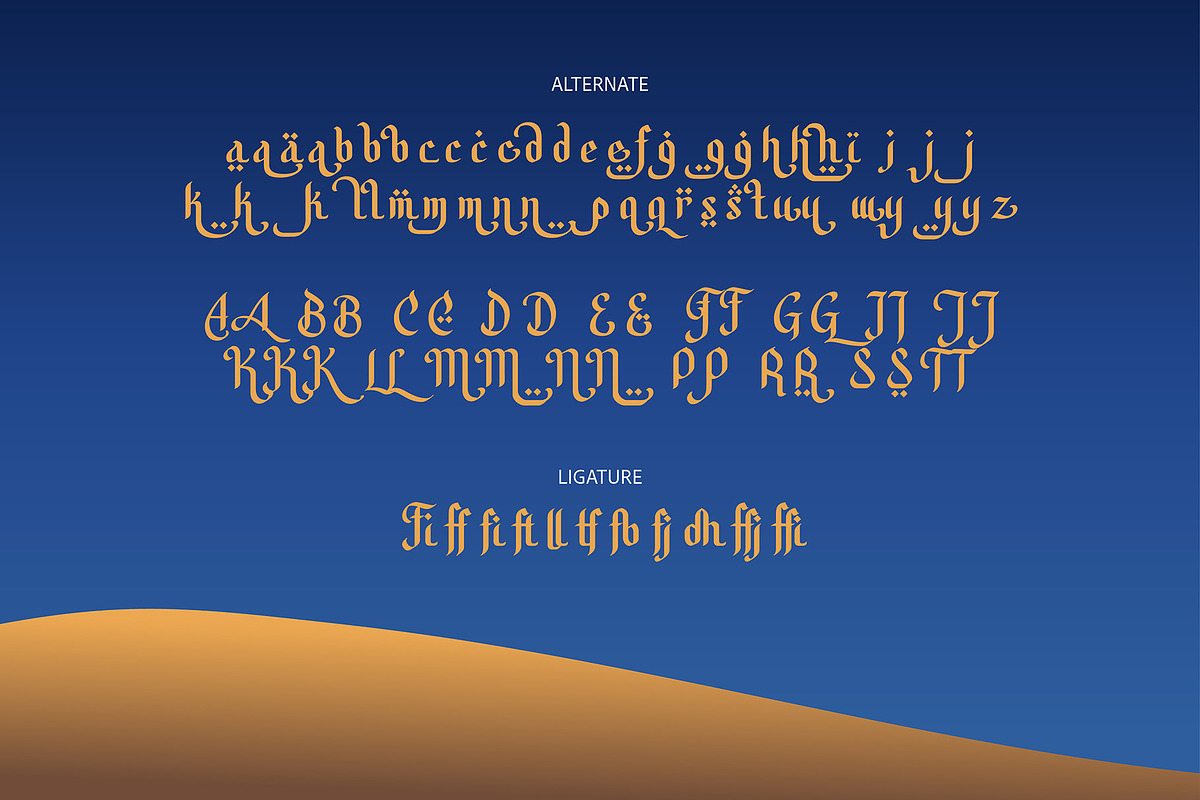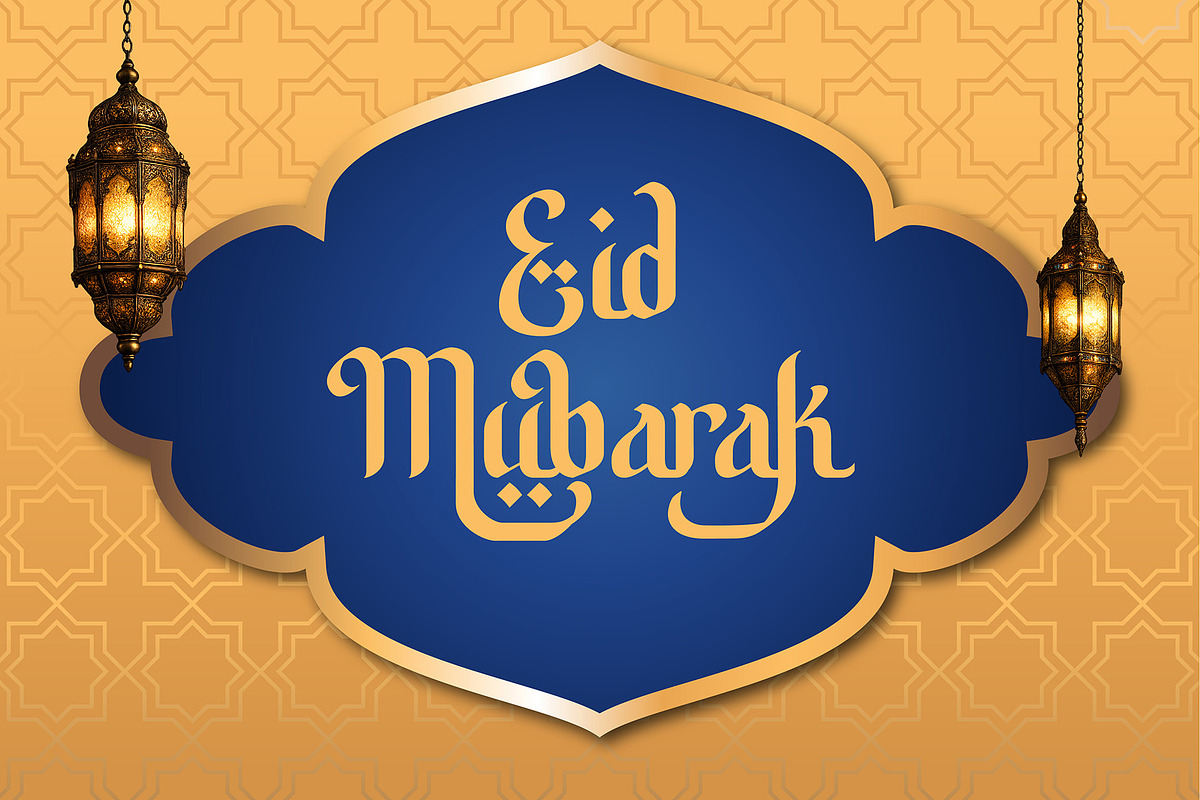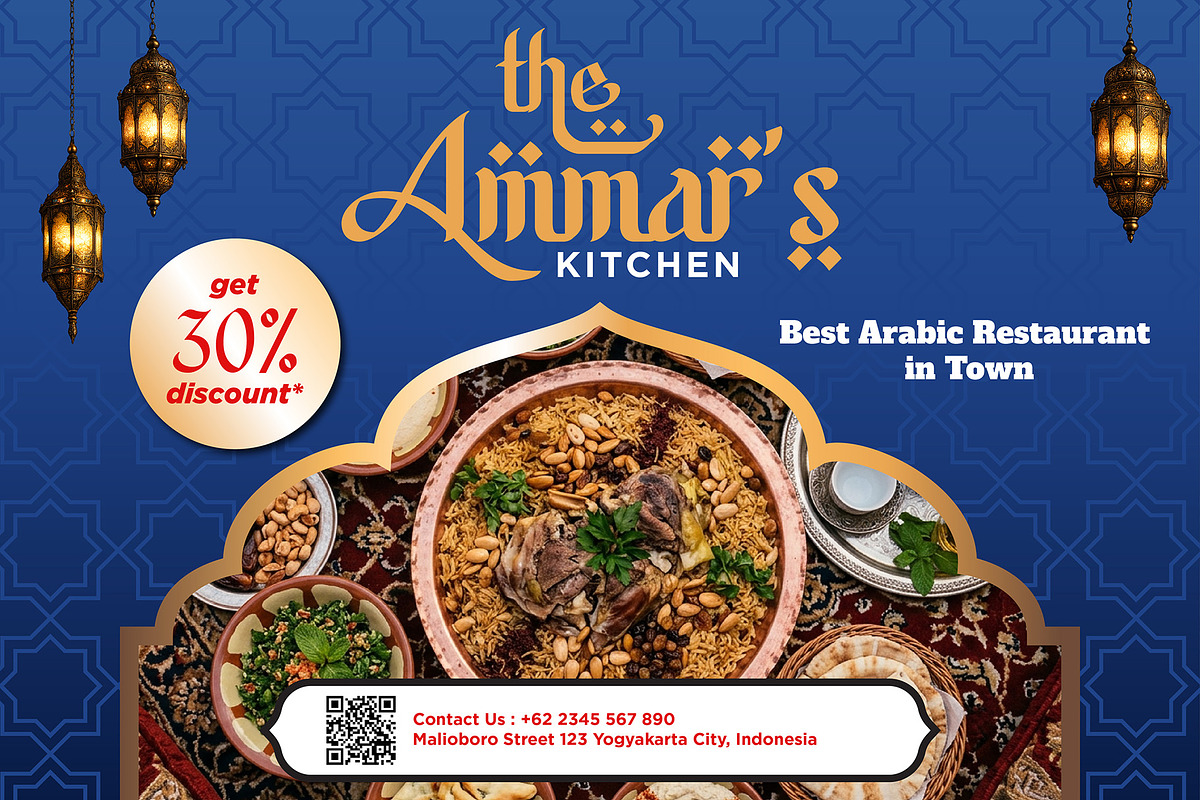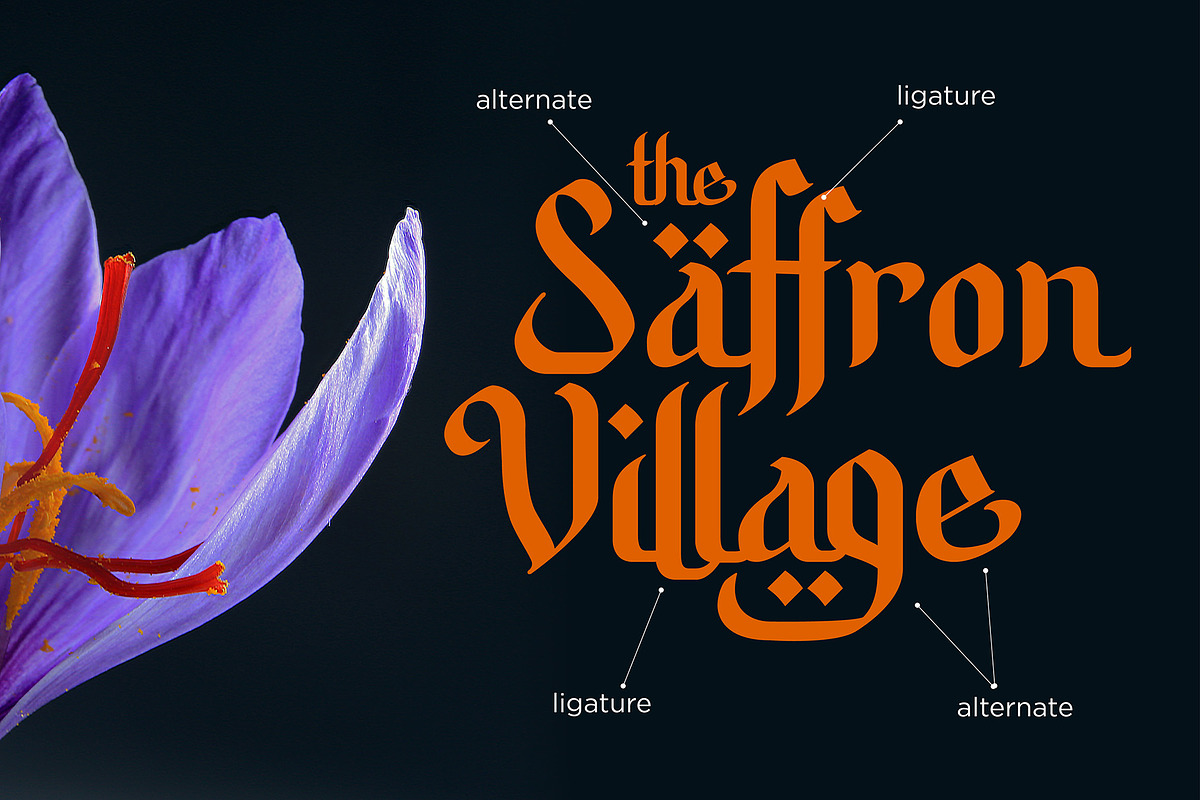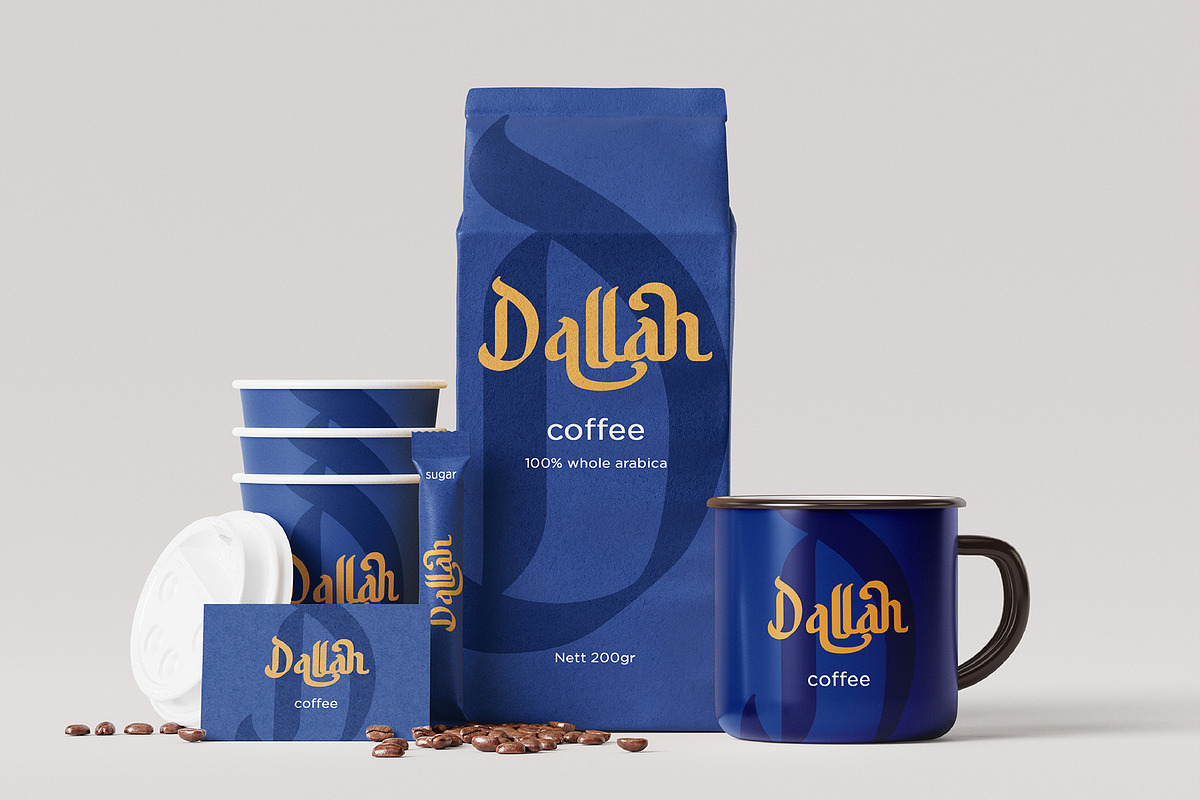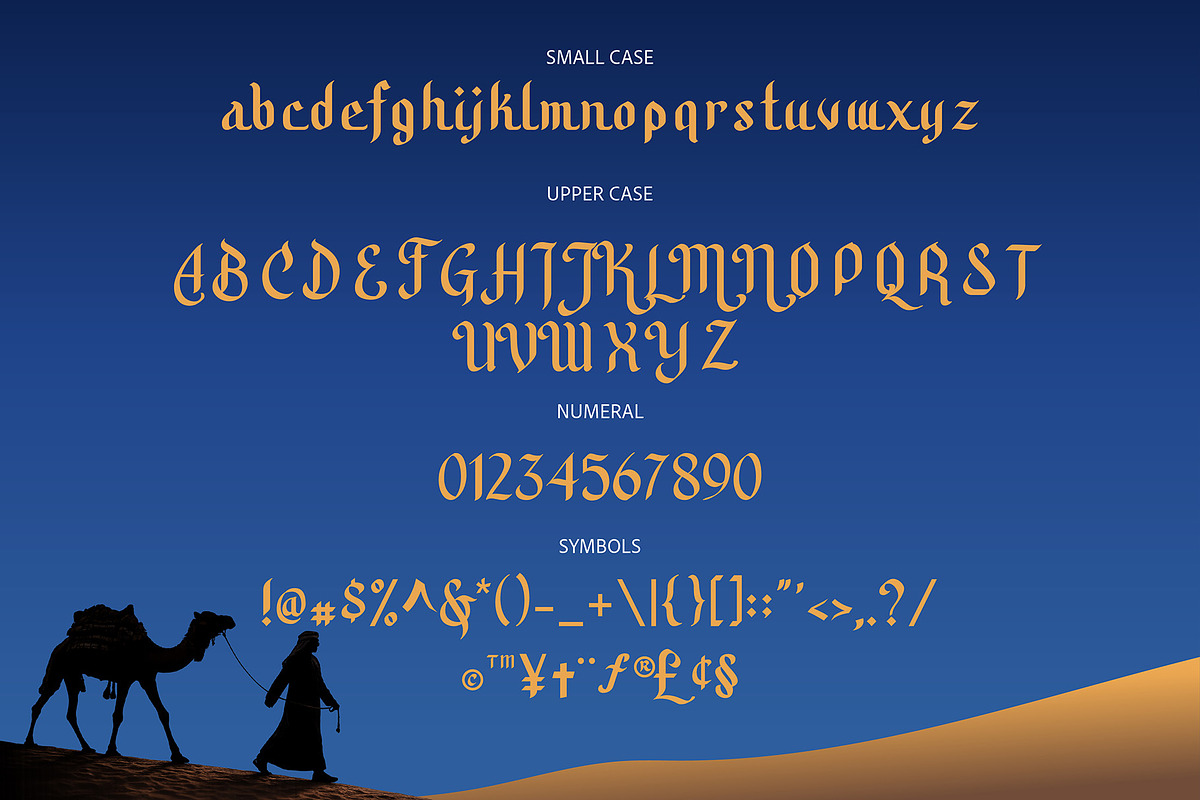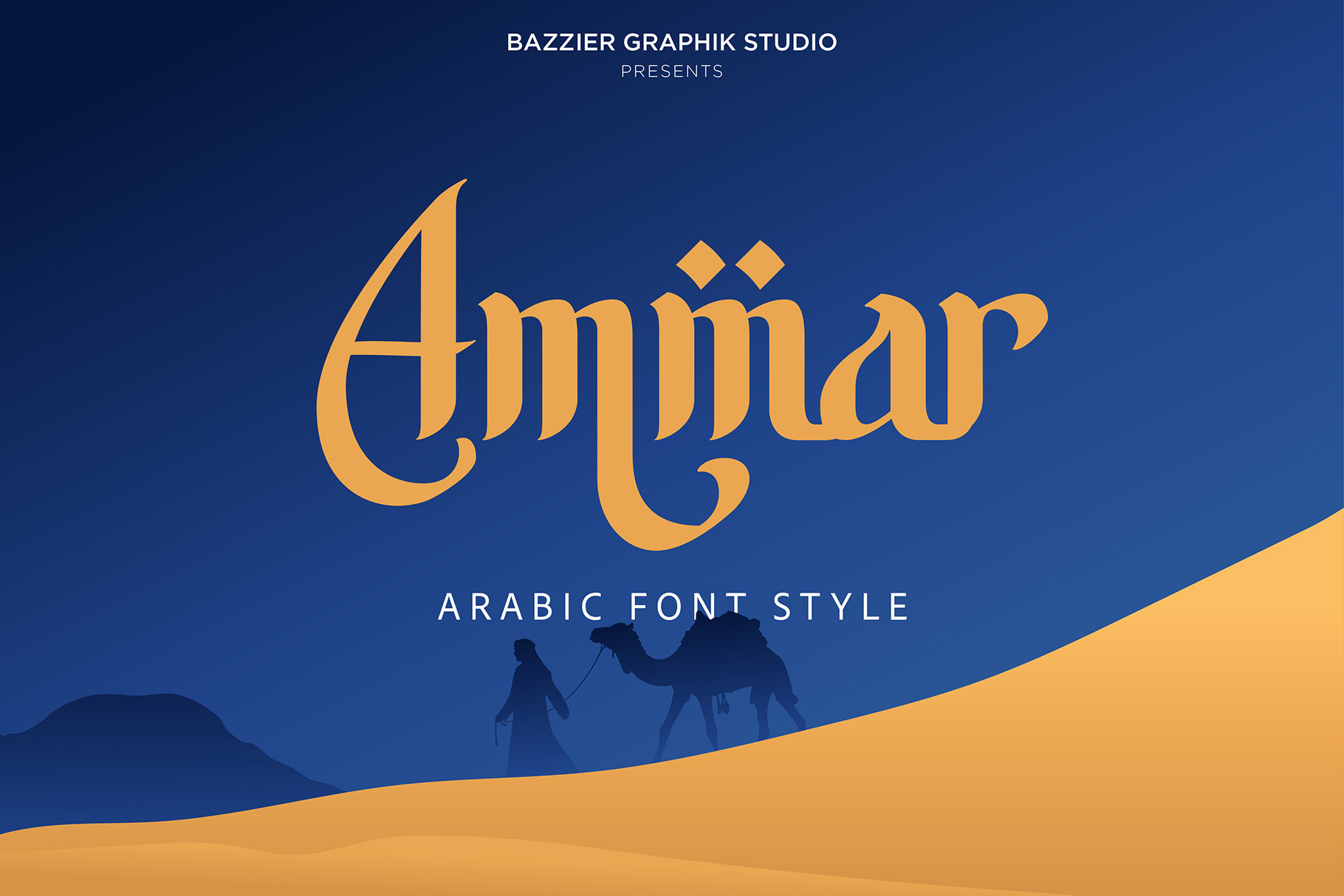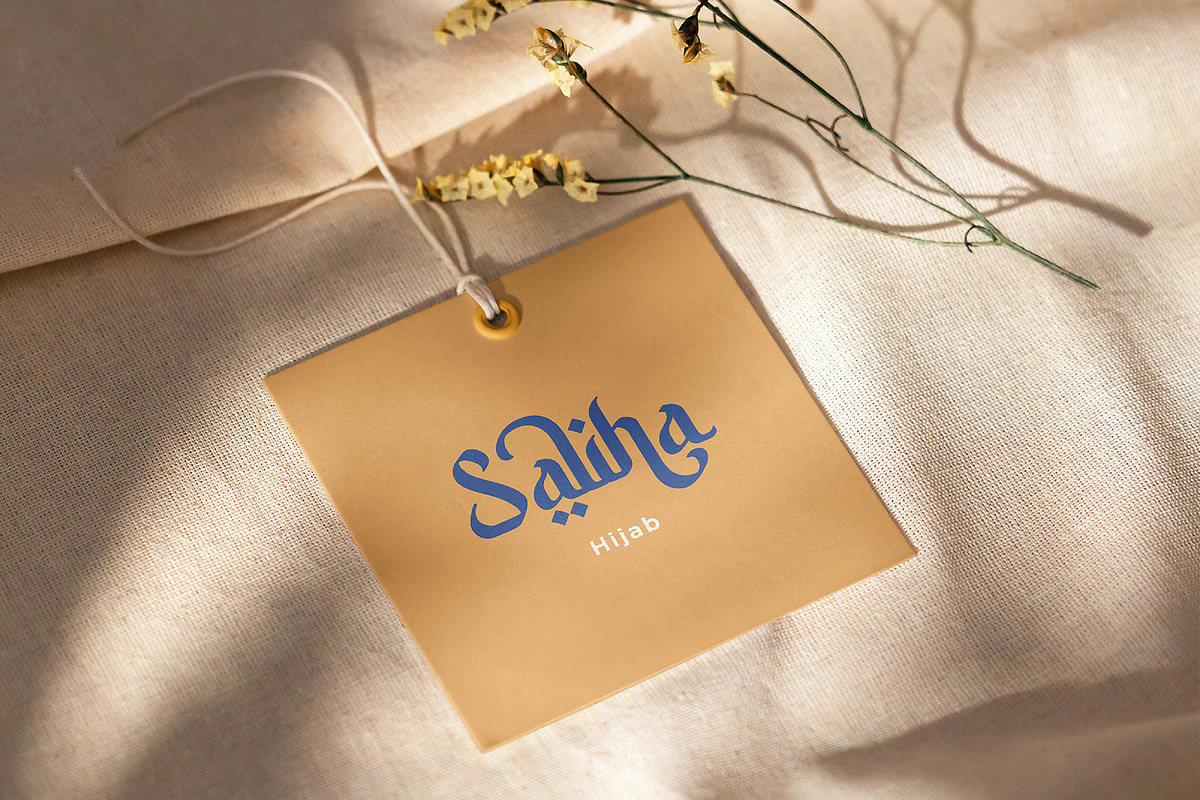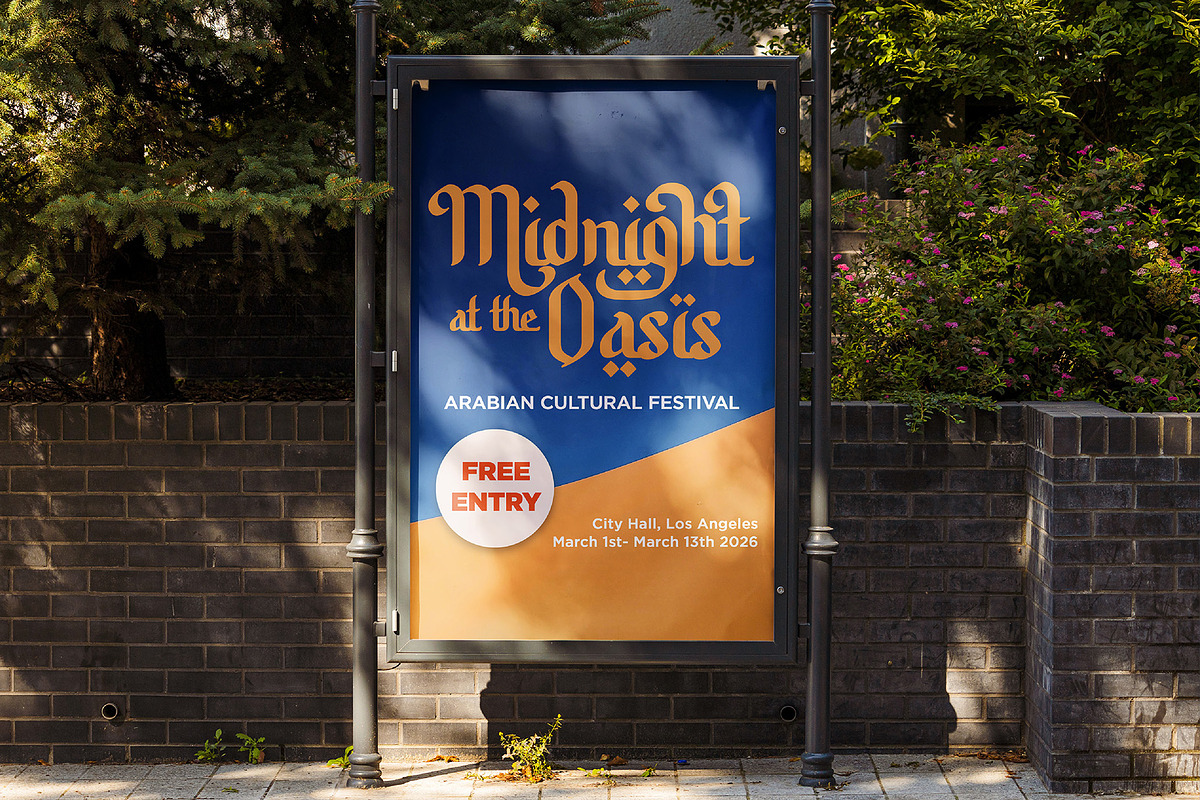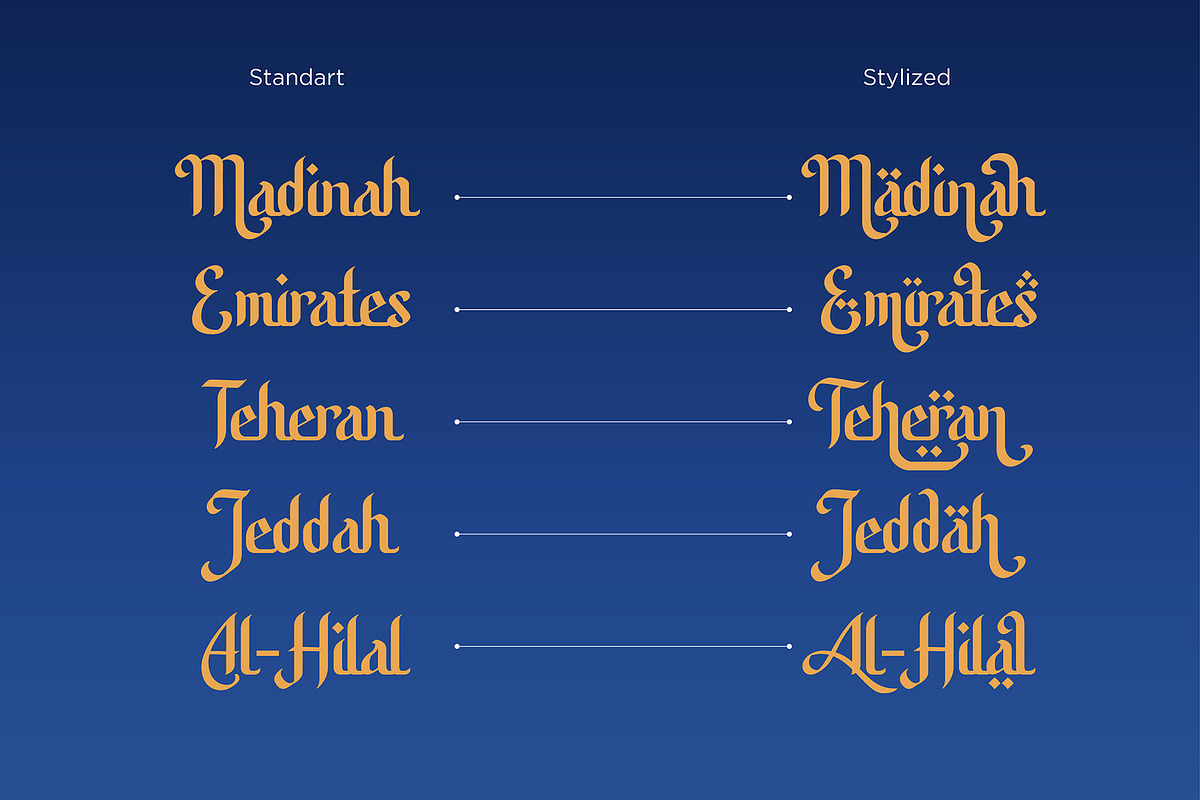
Ammar Arabic Font Style
AMMAR Arabic Font Style is inspired by the elegance and flow of Arabic characters, this typeface blends bold curves with a modern touch—perfect for branding, packaging, and standout designs.